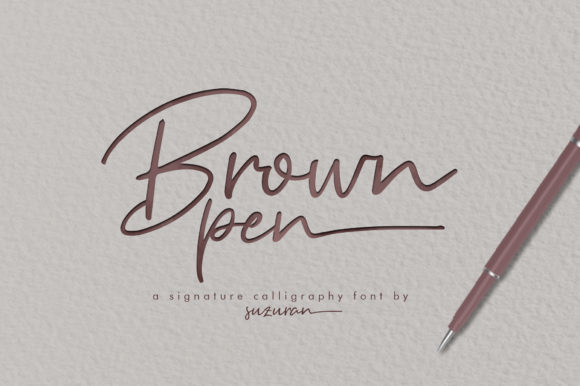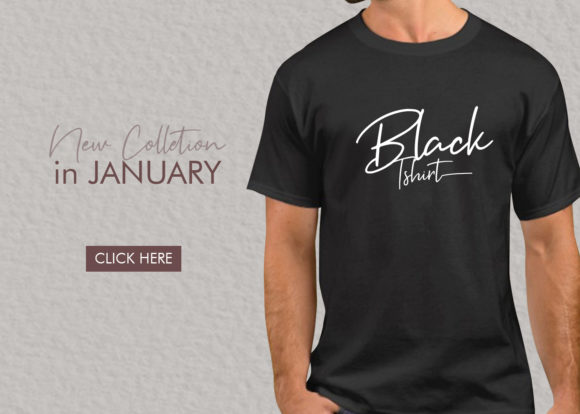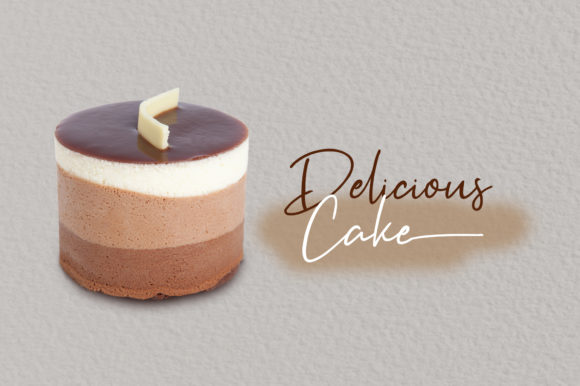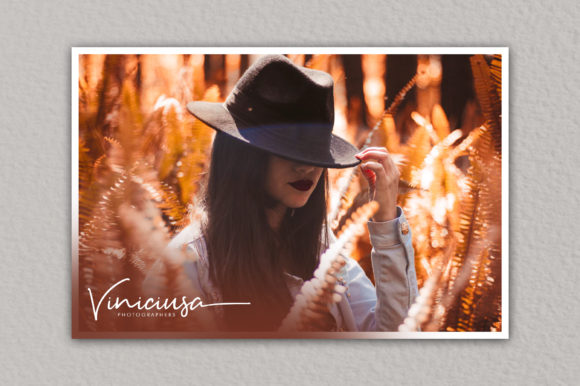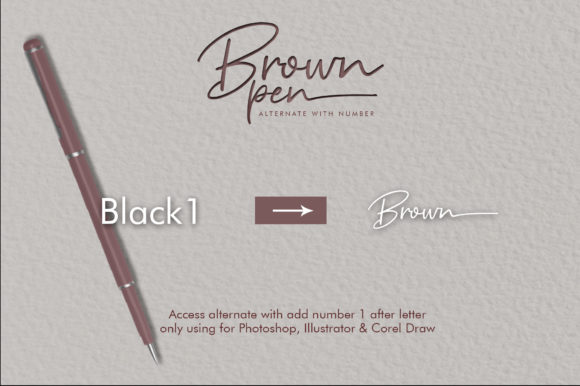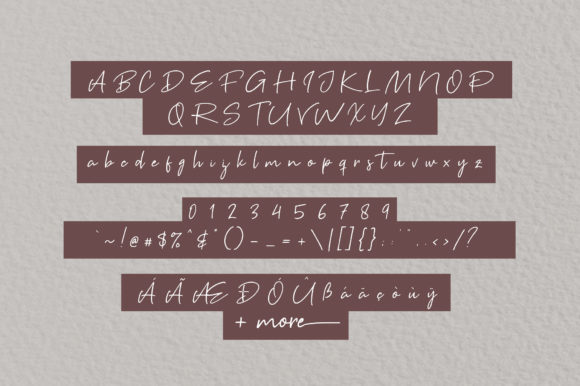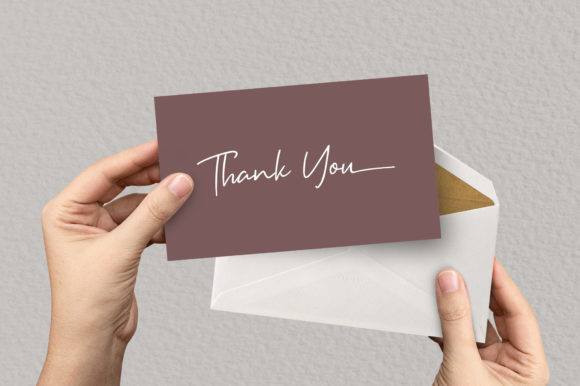
Brown Pen Script Font
About Brown Pen Script Font
The Brown Pen is a fresh and unique script font. It has a fun and elegant feel which can be used to create your own logo, poster, wedding invitation, and much more!